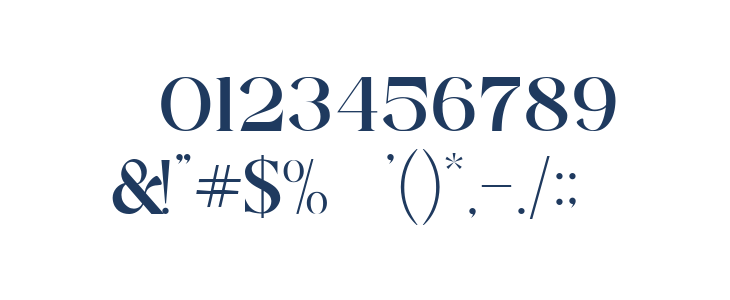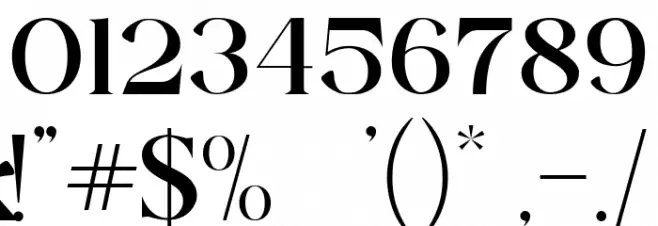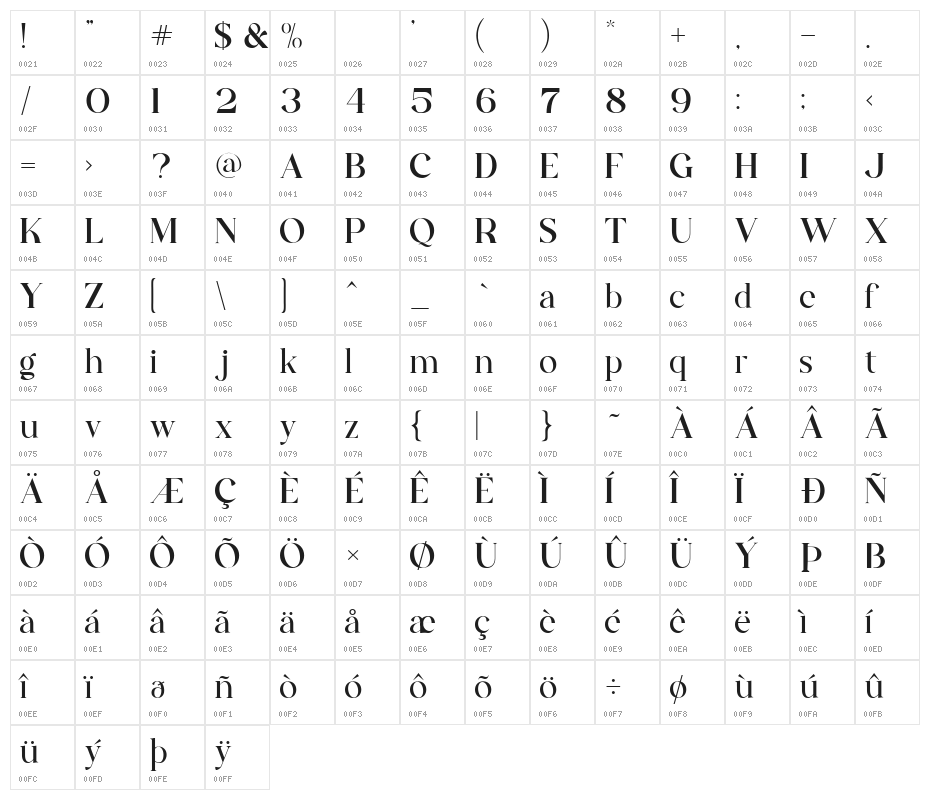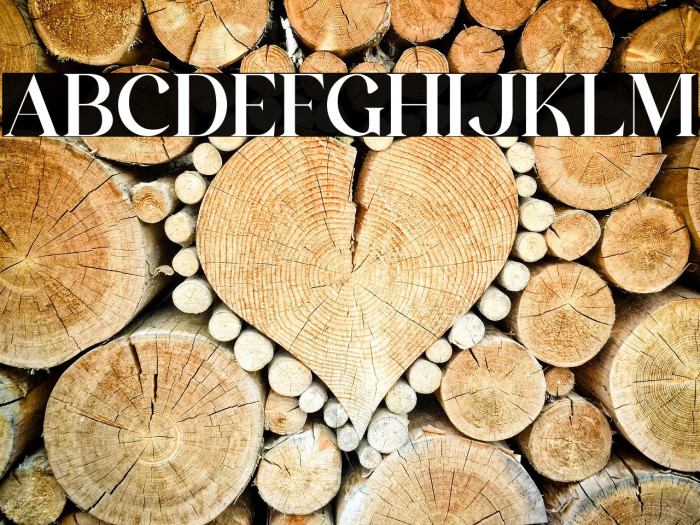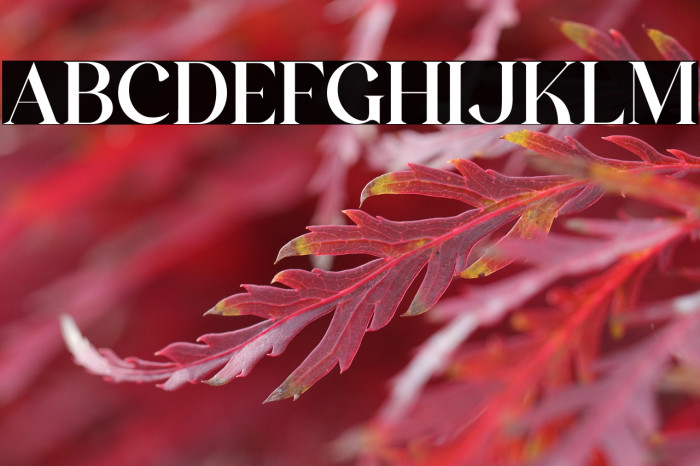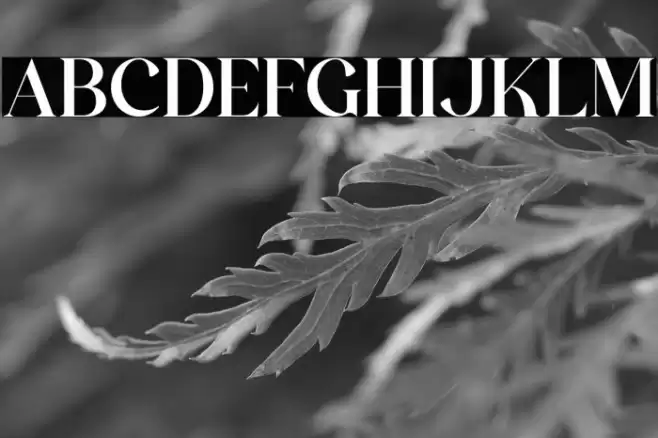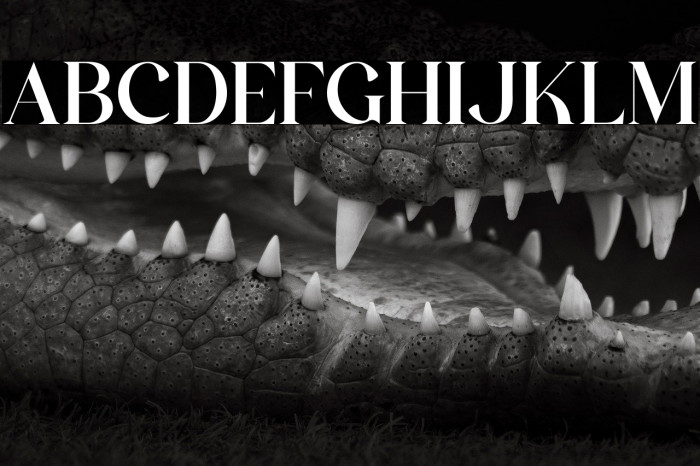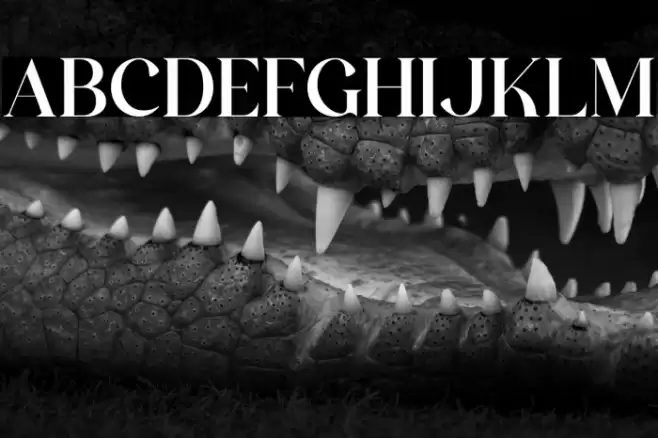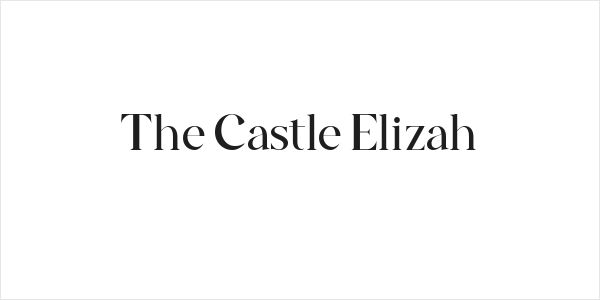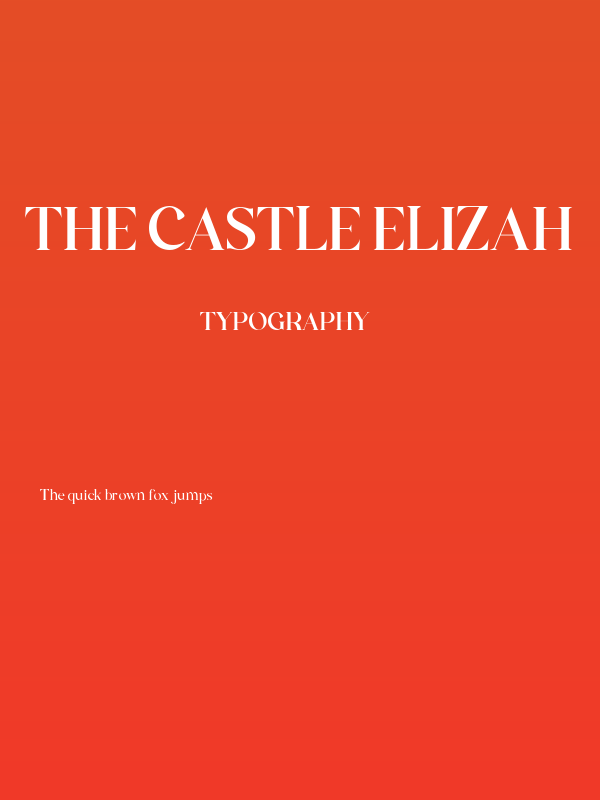
The Castle Elizah Font
The Castle Elizah Description
This font exhibits a classic serif style with a modern twist, characterized by its elegant and refined letterforms. The uppercase letters are bold and commanding, while the lowercase letters maintain a graceful flow. The numerals are distinct and easily readable, complementing the overall sophisticated appearance. The special characters are well-integrated, maintaining the font's cohesive aesthetic. The font's high contrast between thick and thin strokes adds to its visual appeal, making it suitable for a variety of design applications.
| Use Case | Headlines, Logos, Editorial design |
| Proposed Projects | Ideal for luxury branding, editorial design, book covers, and high-end product packaging. |